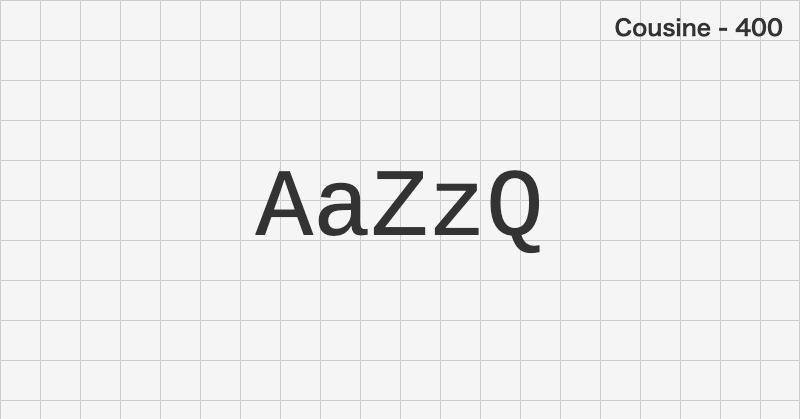
Cousine is a sans serif design that offers a refreshing approach while being metrically compatible with Courier New. It enhances on-screen readability and provides a comprehensive character set, addressing the needs of developers for cross-platform compatibility.
Supports Latin, Latin Extended, Vietnamese, Cyrillic, Cyrillic Extended, Greek, Greek Extended and Hebrew, making it suitable for multilingual environments.
Available in Regular and Bold weights, including Italic styles, Making it suitable for various code displays and technical documents.
Cousine was designed by Steve Matteson, aiming to create a versatile font that meets the demands of modern digital communication.